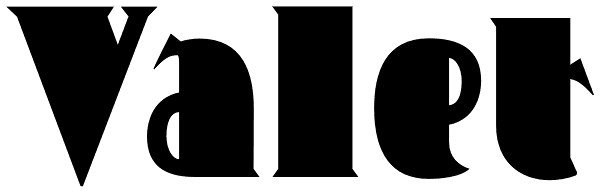
Valet
Valet is inspired by an uncredited early 1970s all-cap film type called Expression. A very funky lowercase was added and a small caps style was made. The character sets of both styles were also expanded to include support for Central and Eastern...
Valet
Valet SC